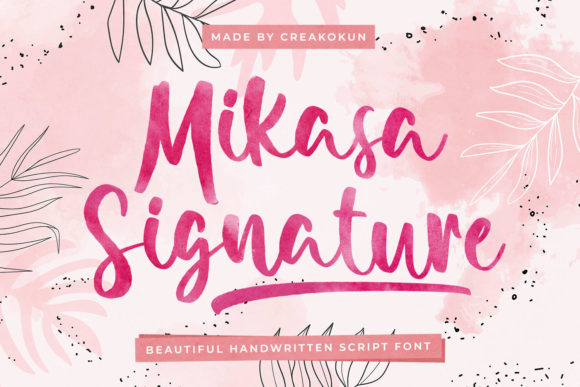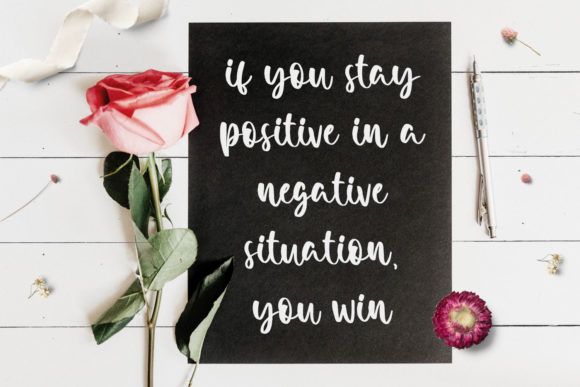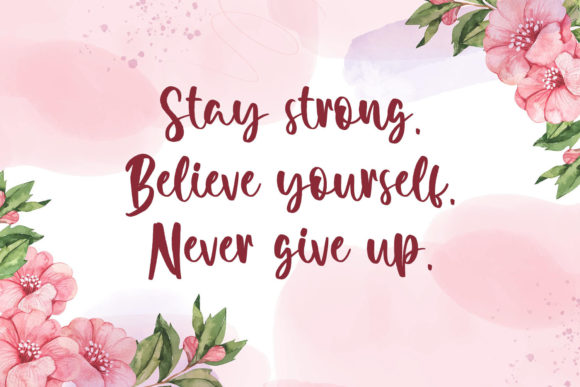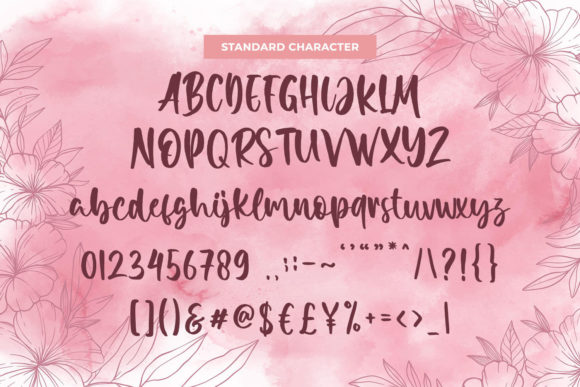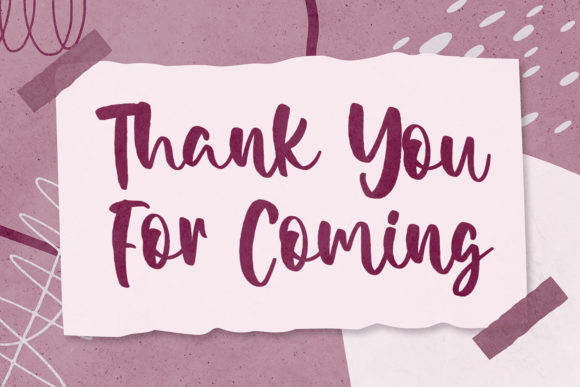
Mikasa Signature Font
About Mikasa Signature Font
Mikasa Signature is a lovely script font featuring charming, playful characters that seem to dance along the baseline. Add this font to your most creative ideas, and notice how it makes them stand out!